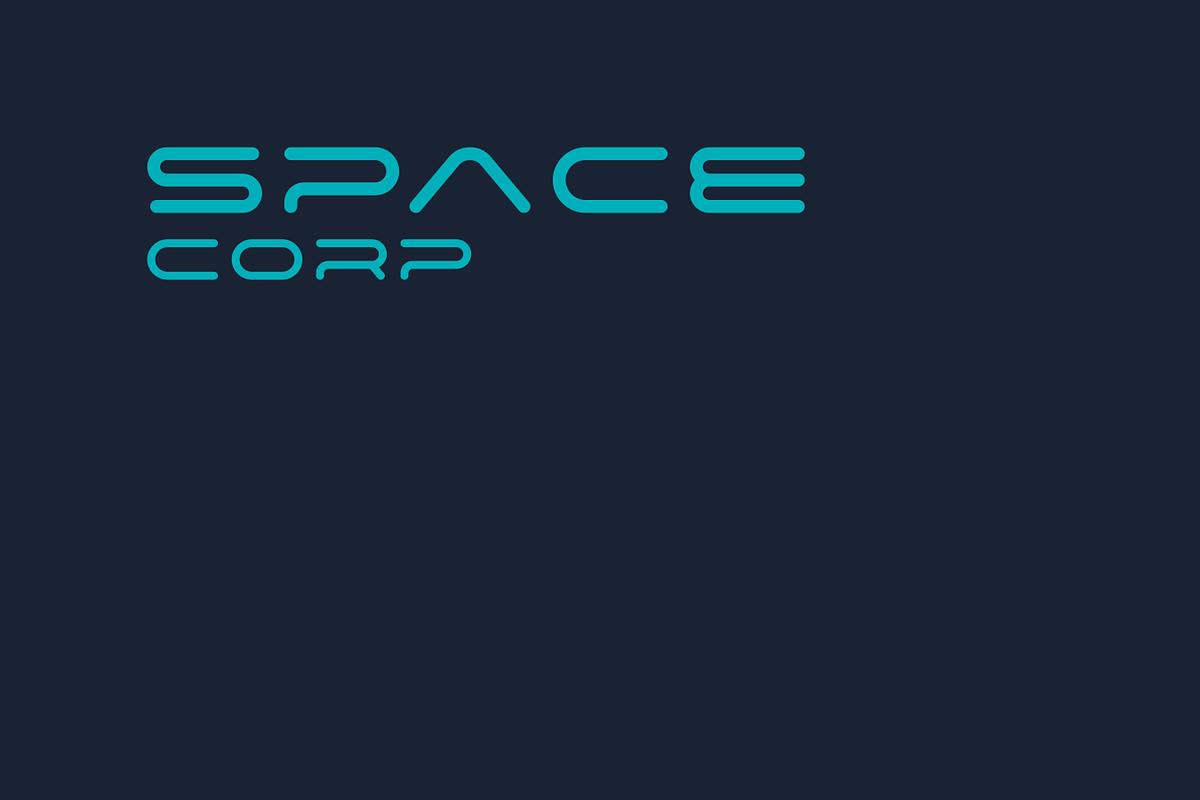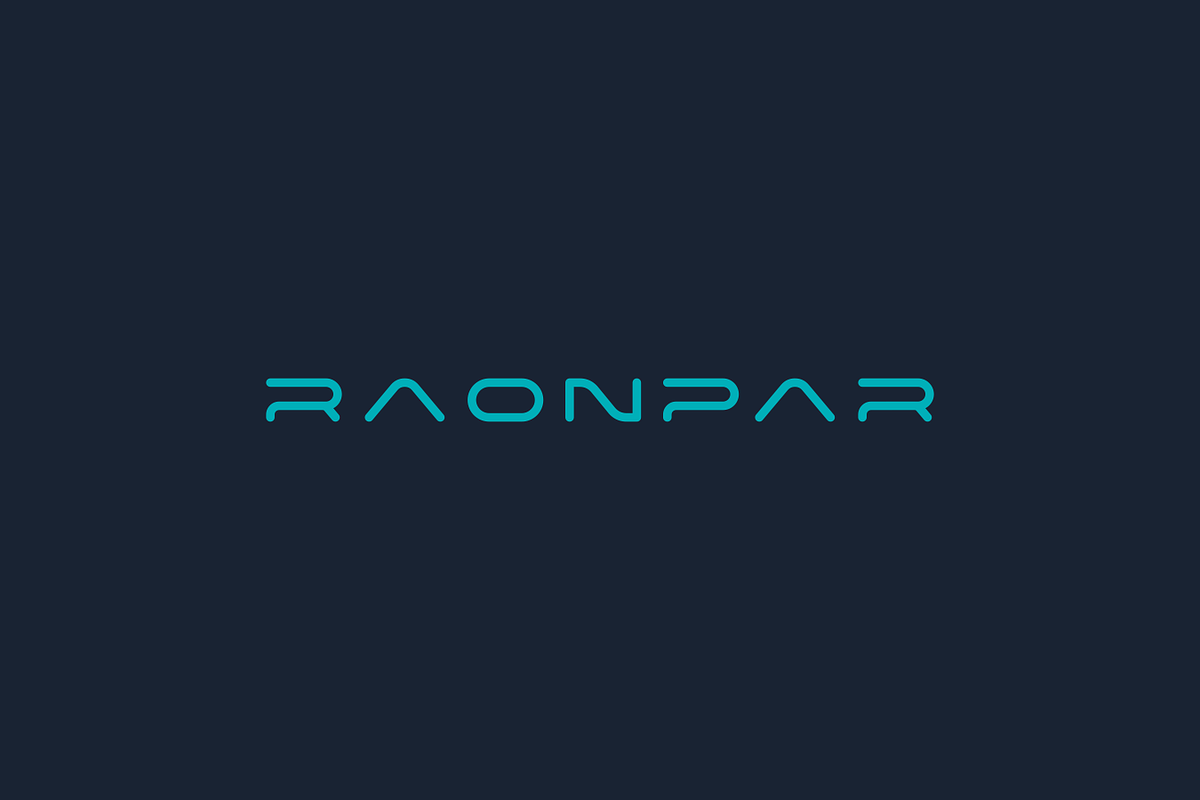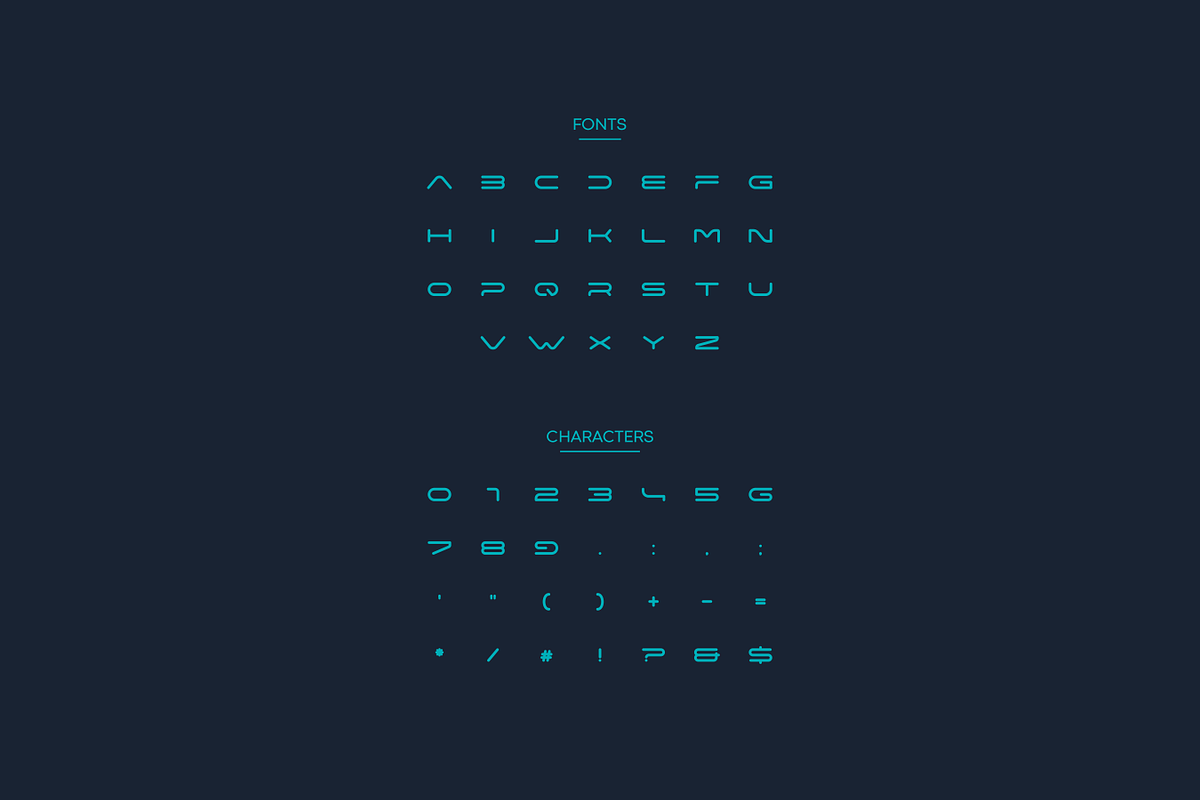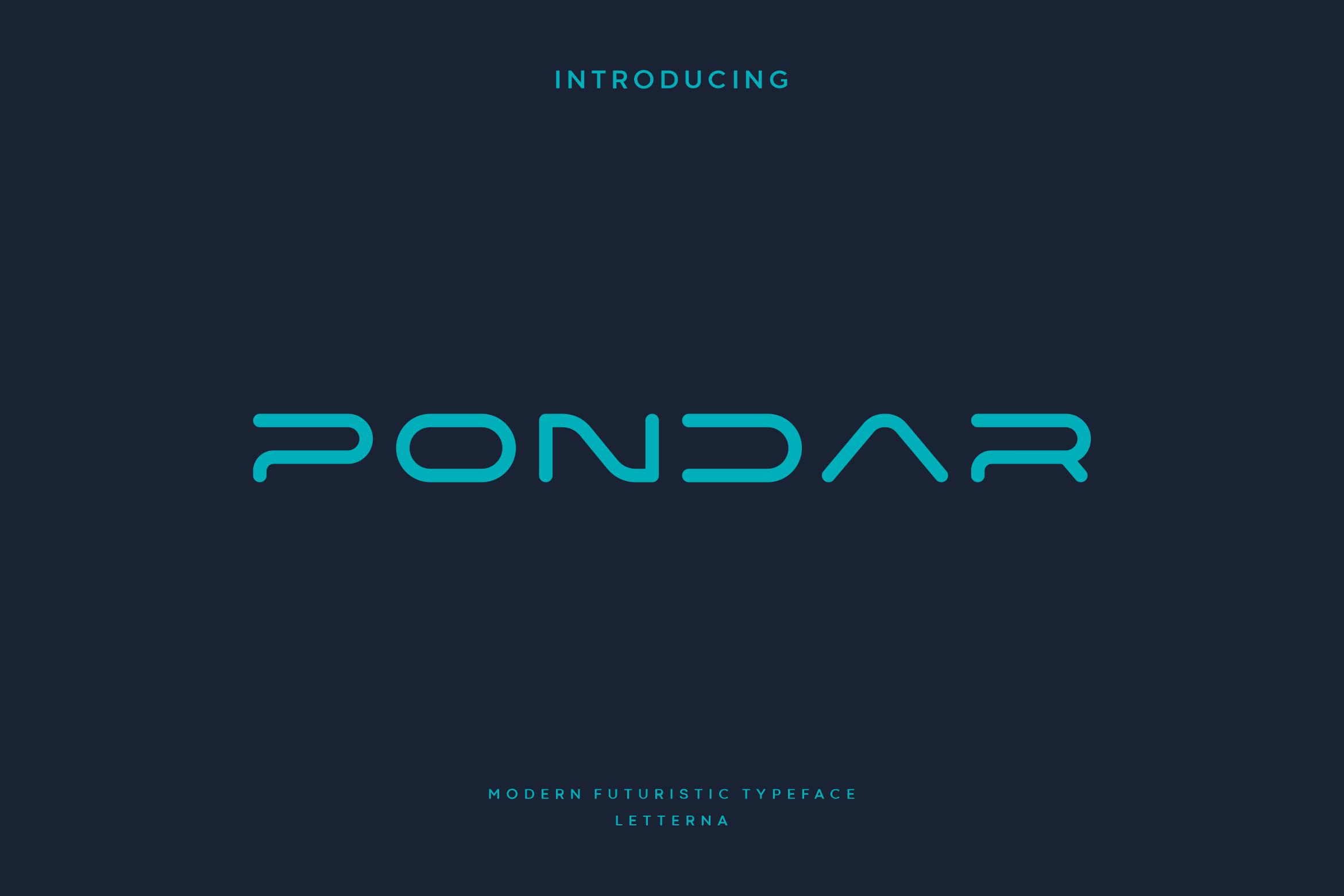
Pondar - Modern Futuristic Typeface
Pondar font creates futuristic hi-tech atmosphere and style. It is good looking as header and as text both. Use it in your projects in such areas as robots & androids, hi-tech, future, virtual reality, space, sport and many others.